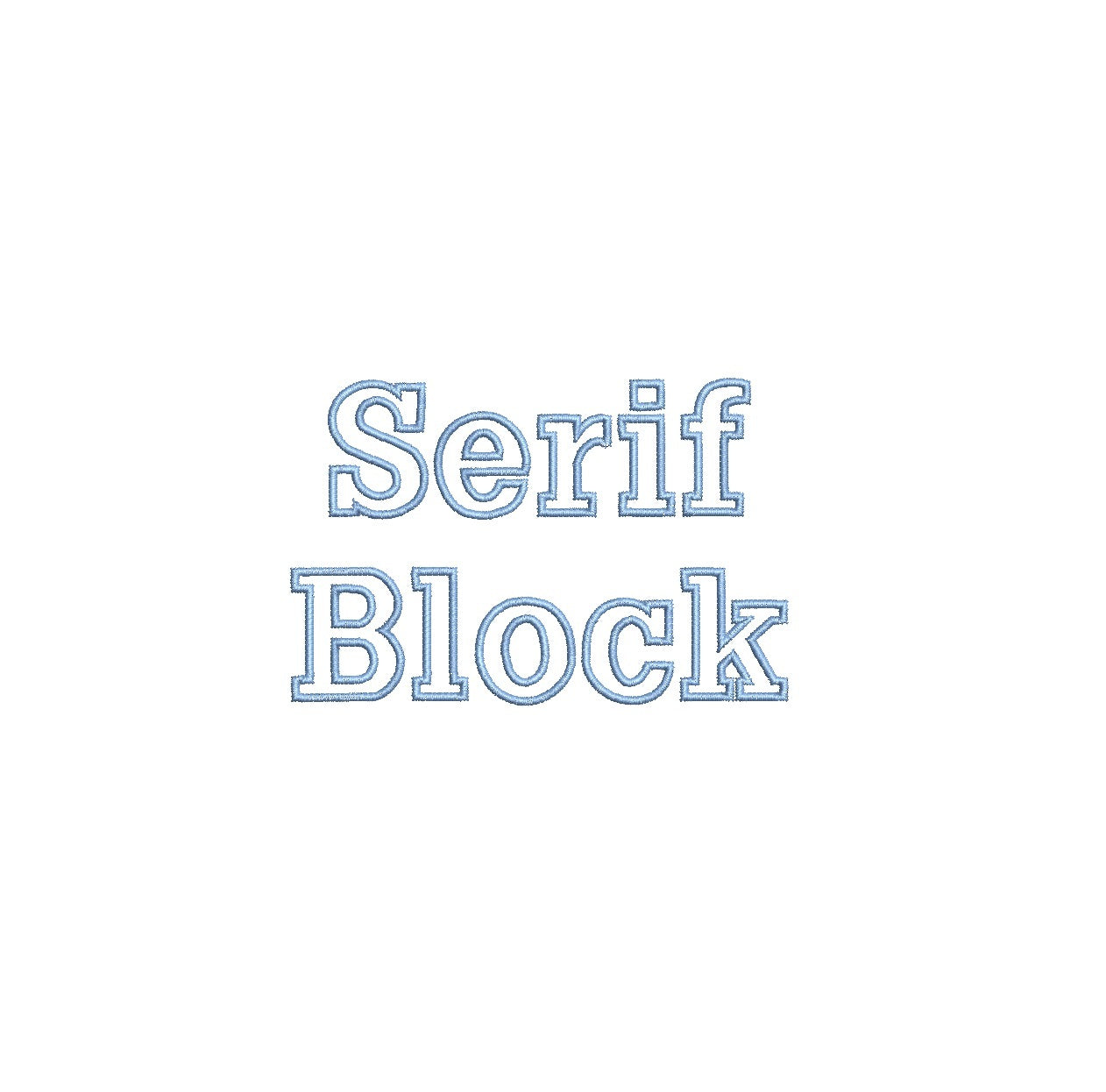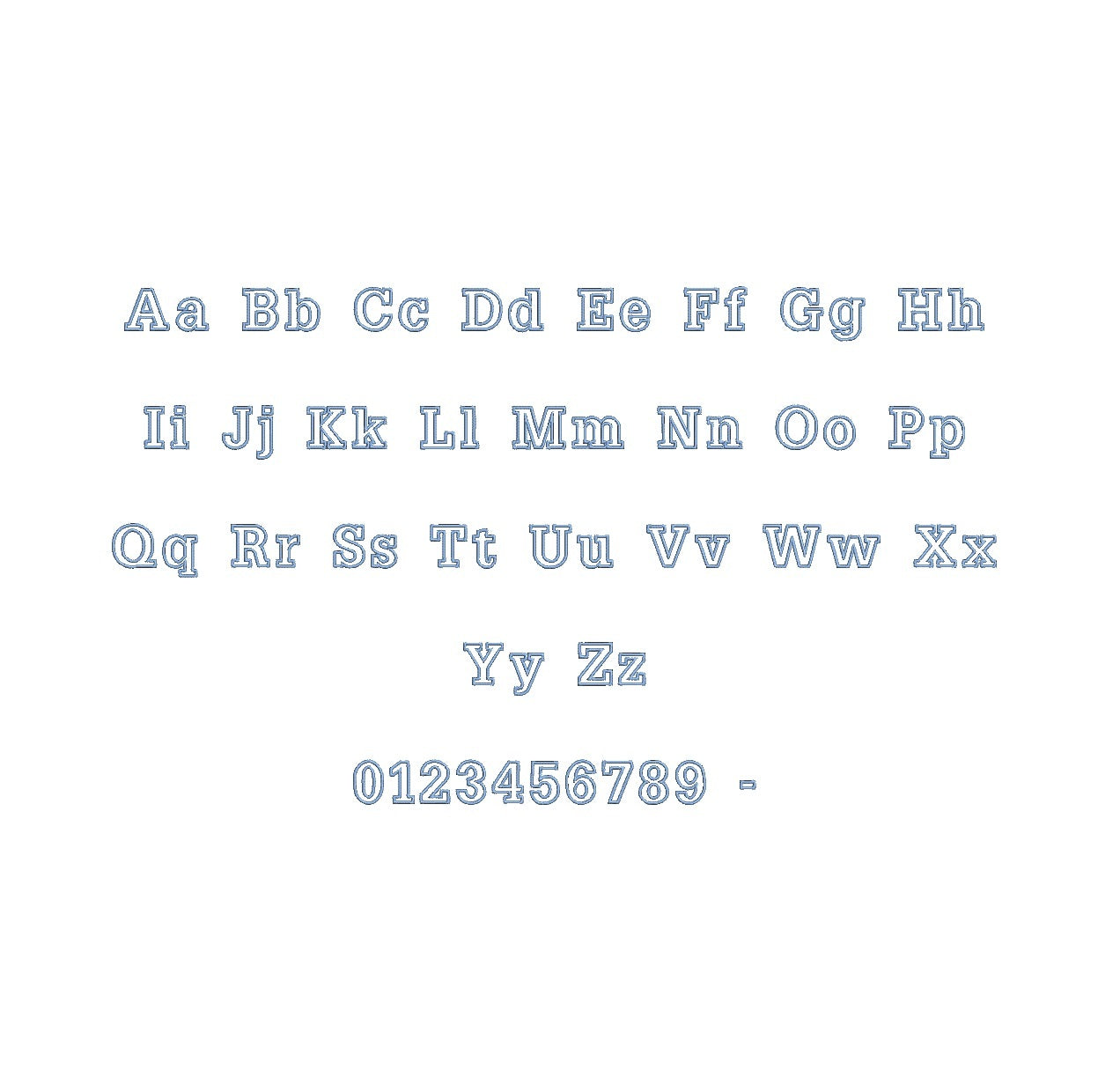
Elevate your embroidery projects with the Serif Block Outline ESA font, fully compatible with Wilcom Studio e4.5.6 and Hatch 3 versions and beyond. This font brings a touch of sophistication to your designs, making it ideal for logos, monograms, and projects requiring clear, elegant text. Its meticulously crafted outlines ensure sharp, professional results, and seamless integration into your preferred embroidery software streamlines your workflow. With the Serif Block Outline ESA font, your designs radiate timeless style and visual impact. Enhance your digitization skills and create embroidery that captures attention. Make this font your go-to tool for crafting standout, refined designs.